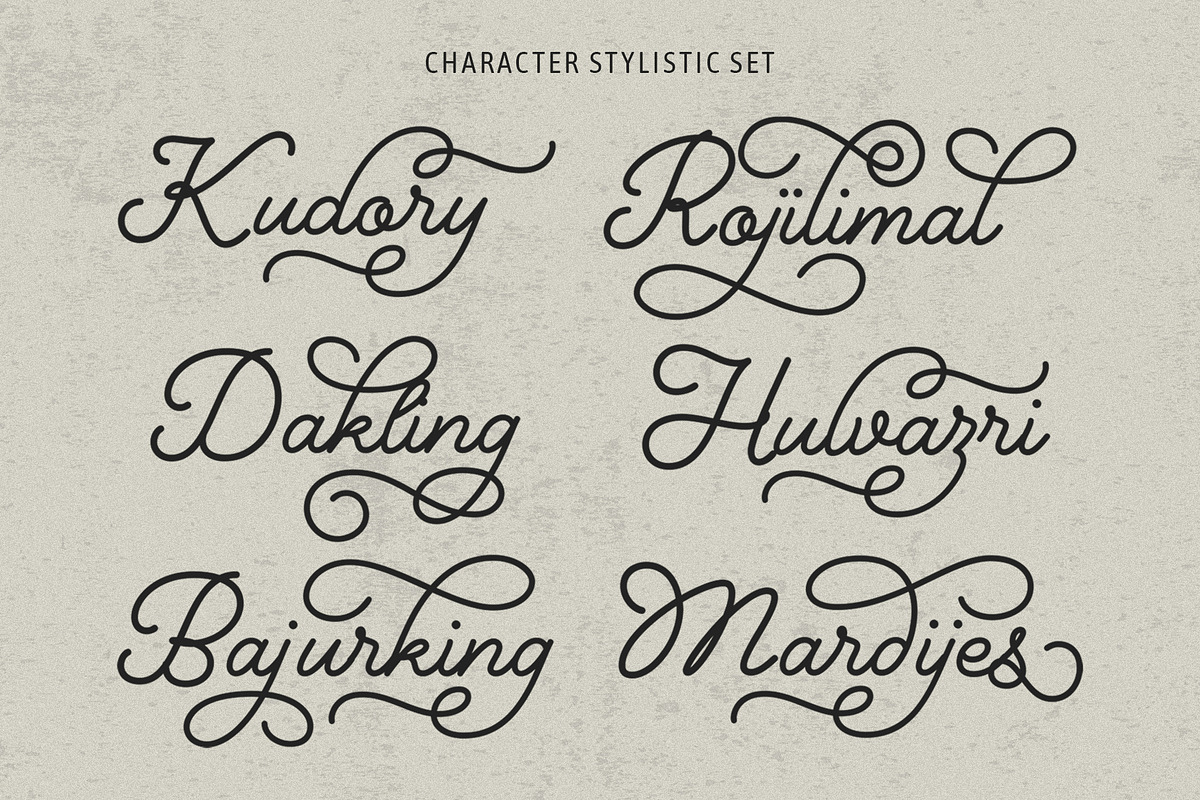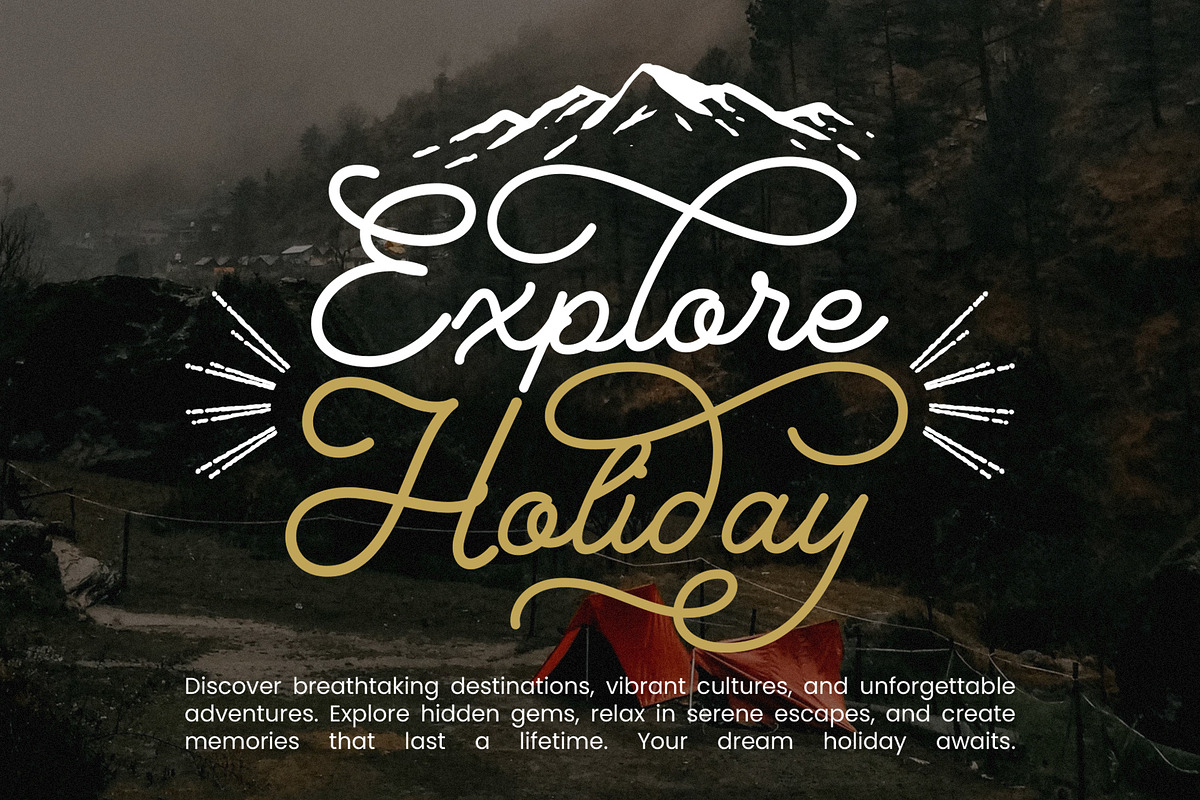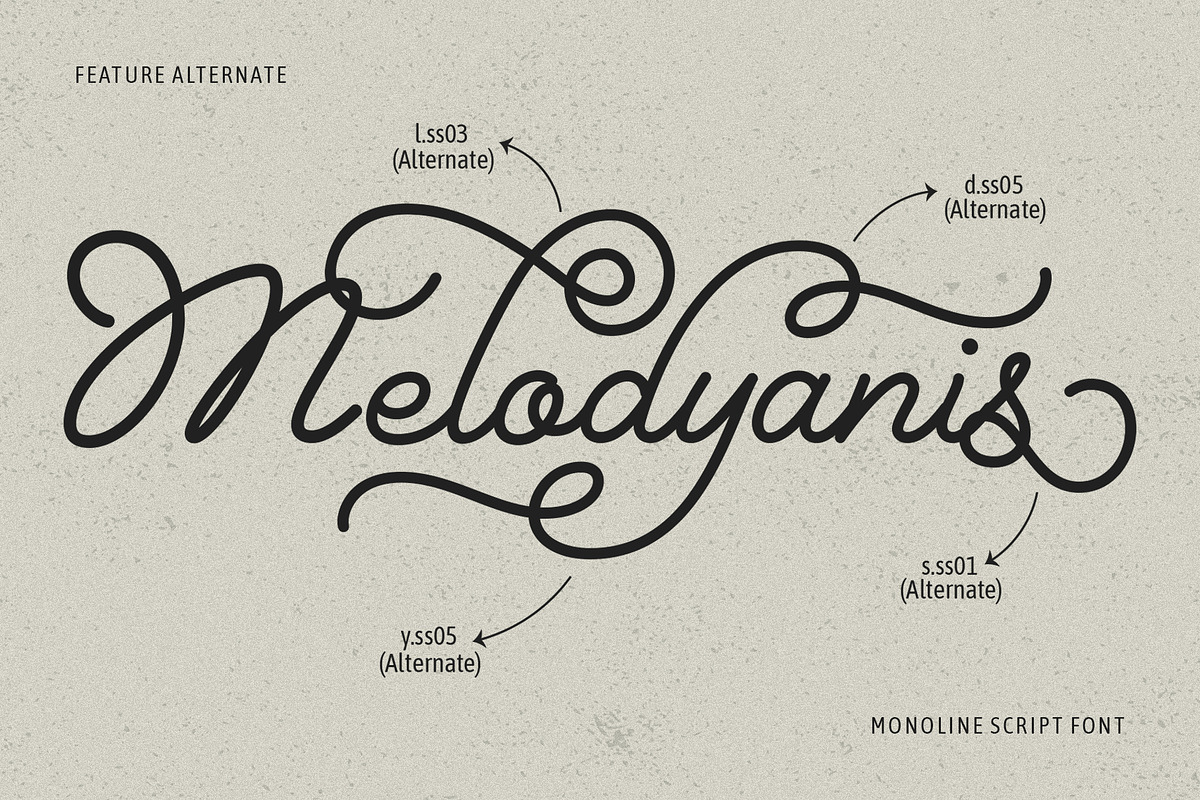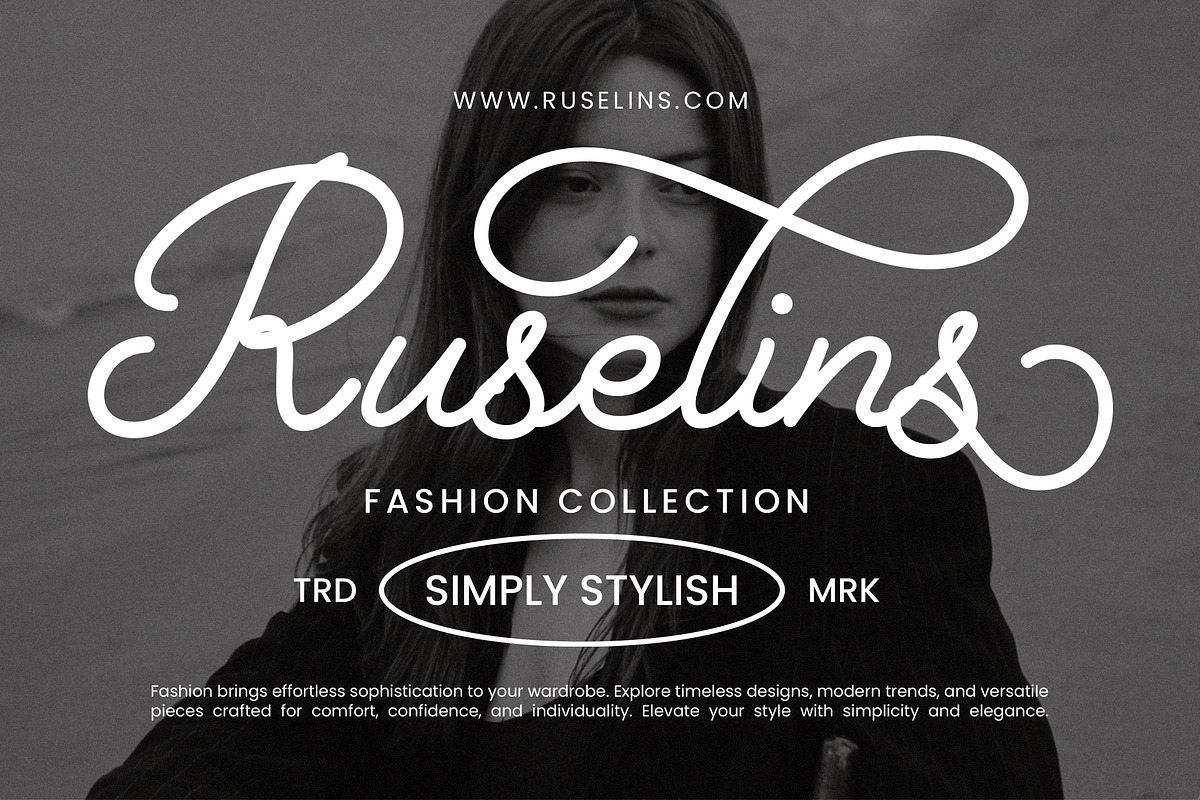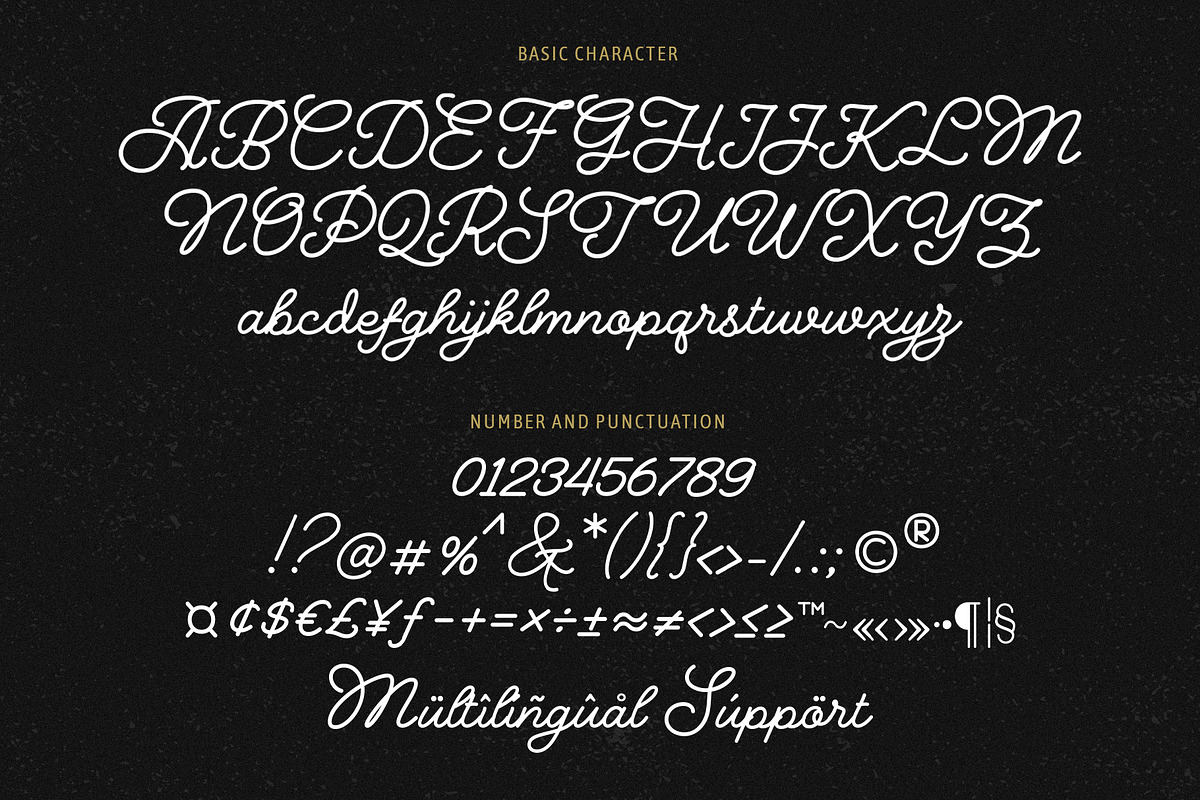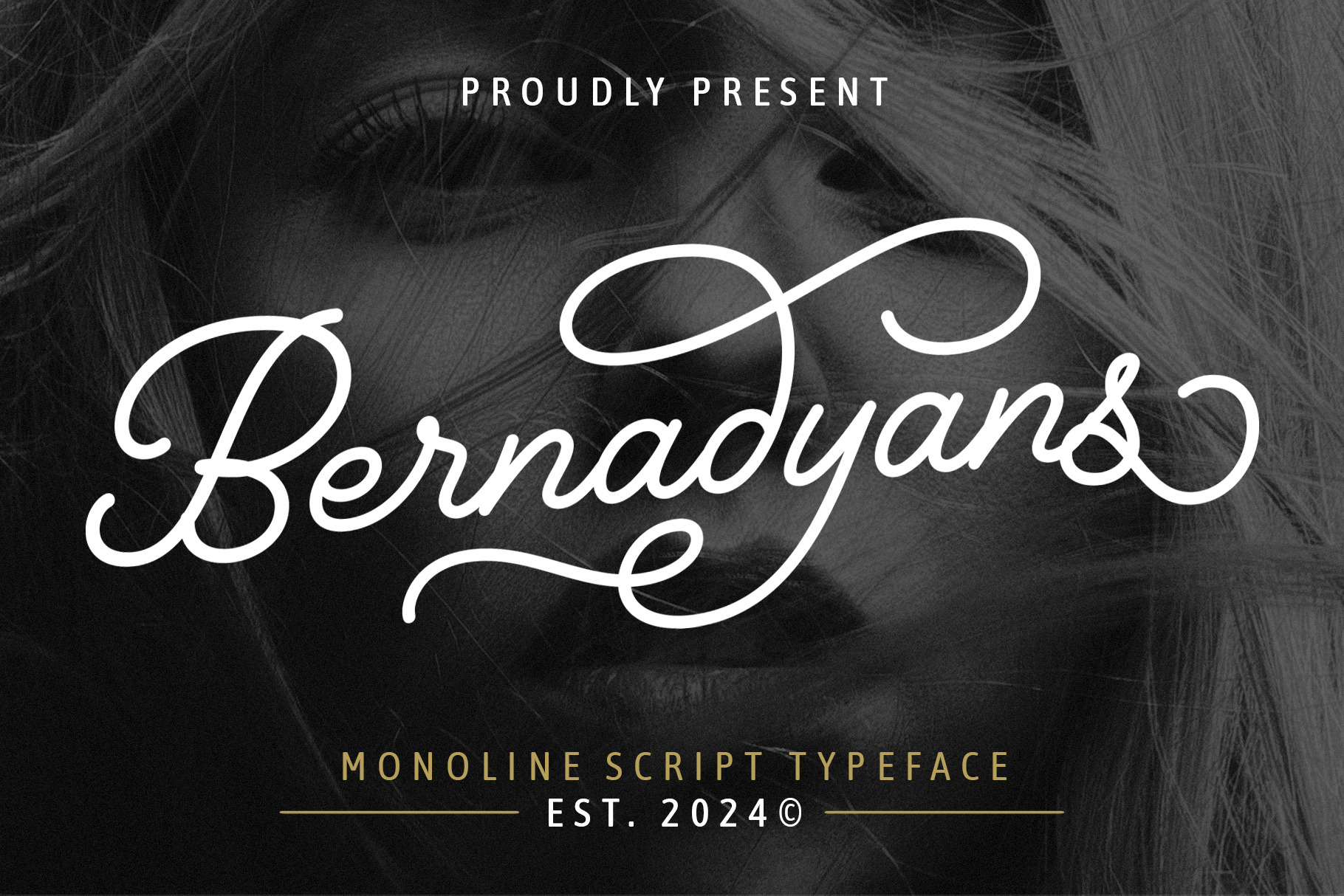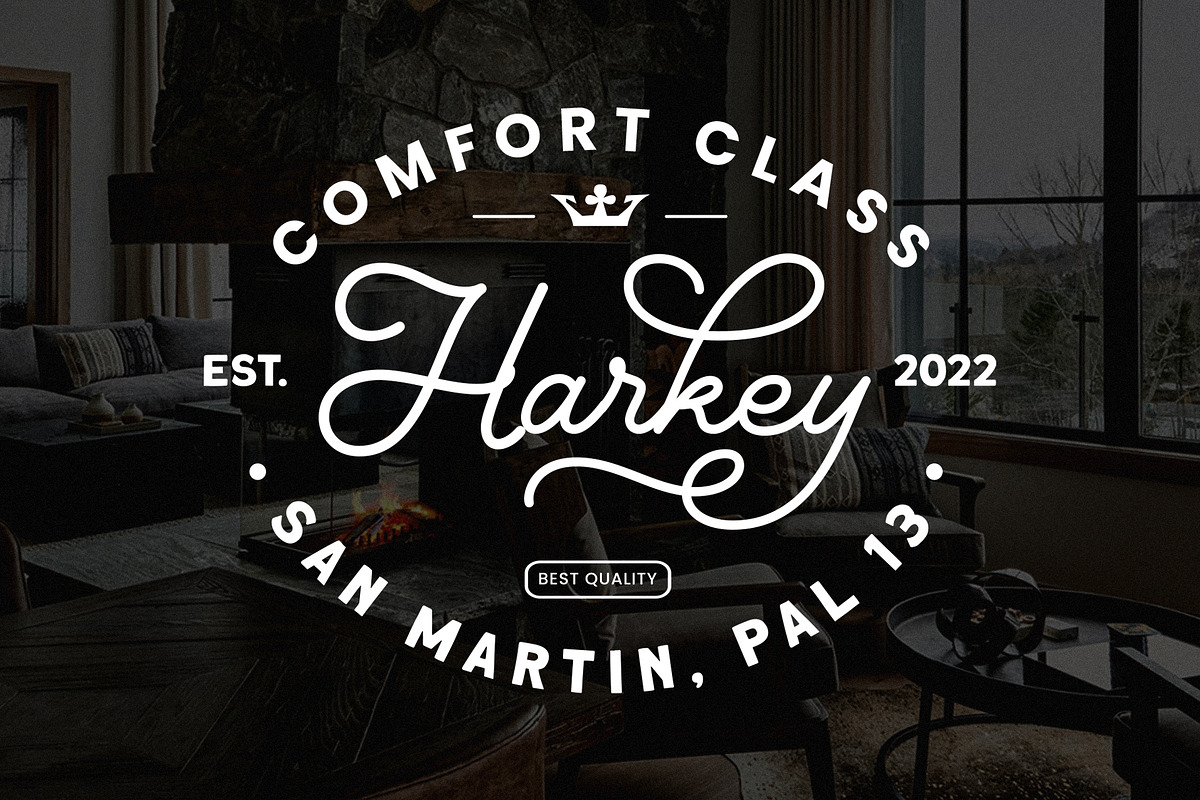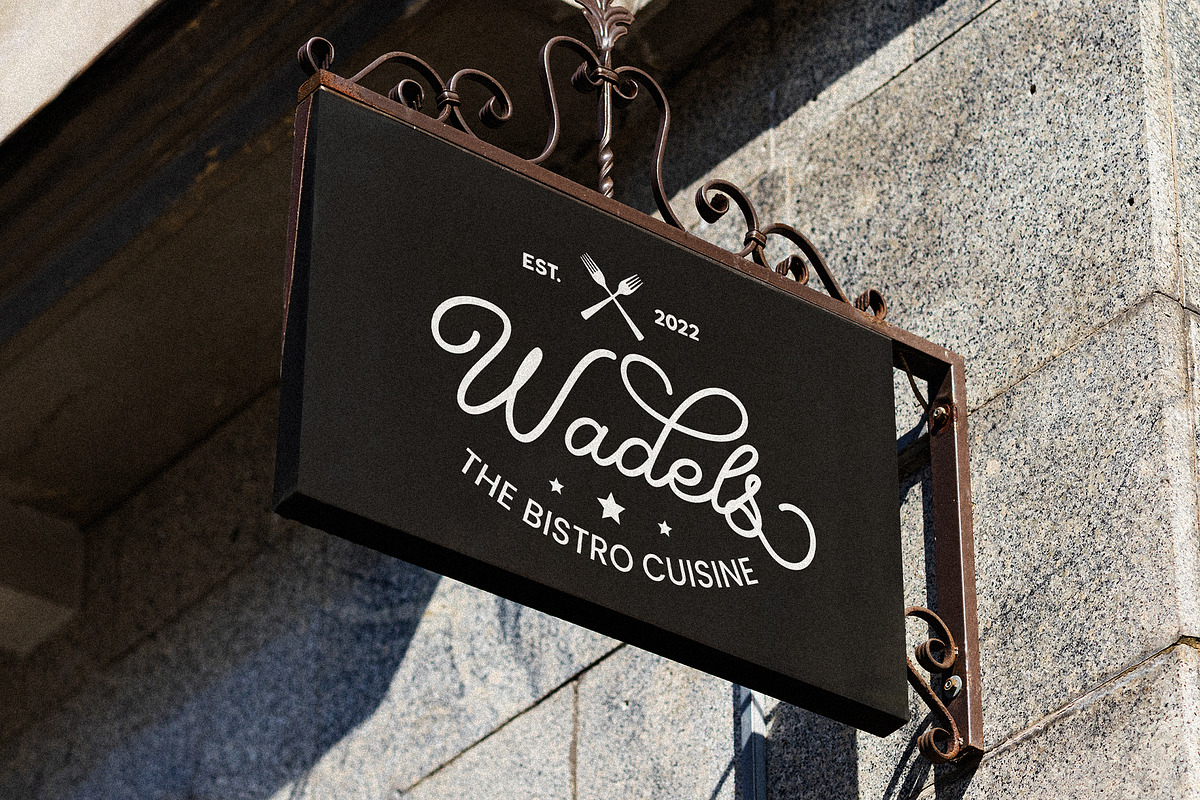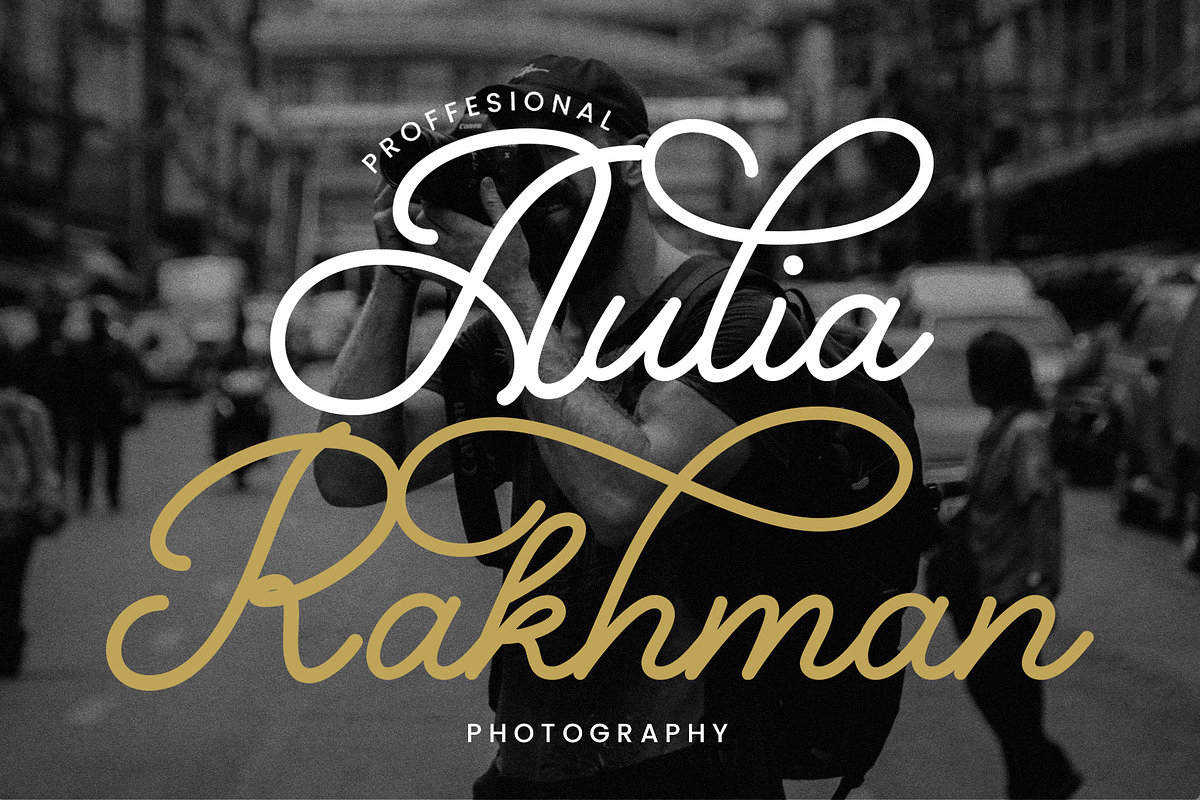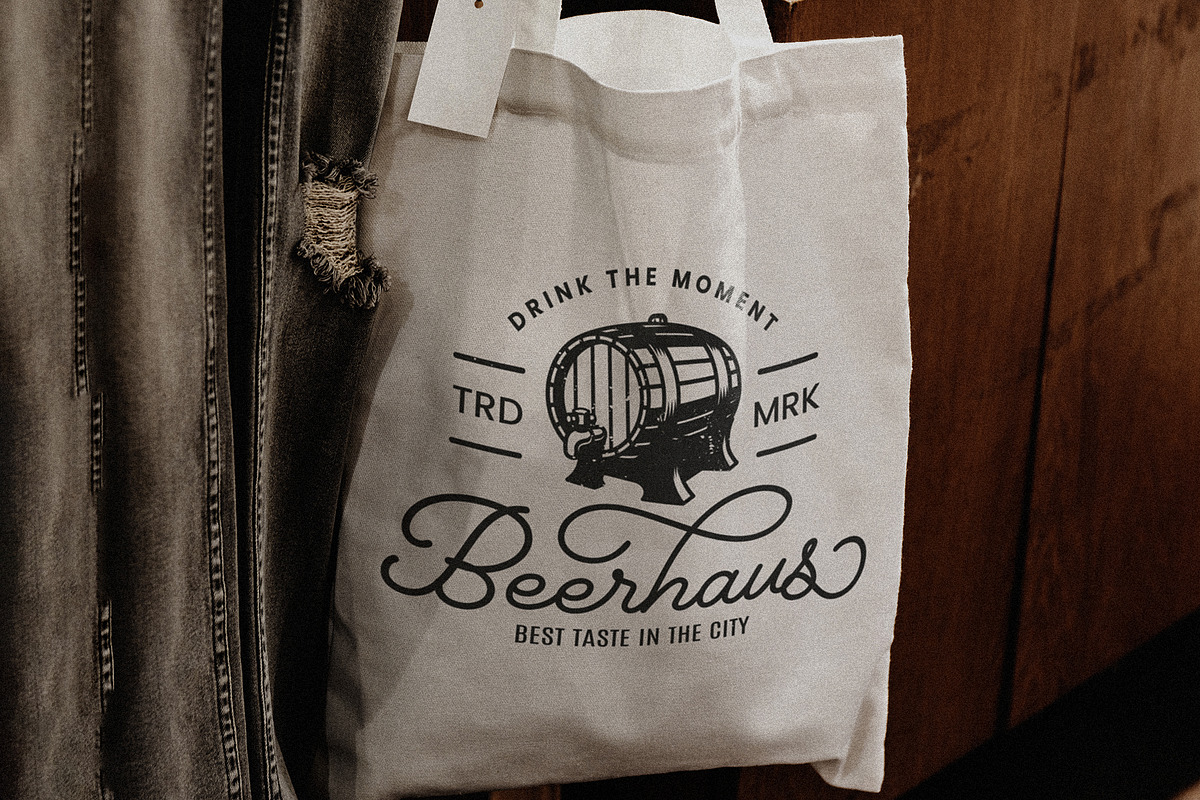
Bernadyans - Monoline Script Font
Bernadyans is an elegant monoline script typeface created with smooth handwritten connections, consistent strokes, and graceful decorative flourishes. Its refined signature style delivers a sophisticated balance between classic calligraphy and modern handwriting.
Designed for projects that require a personal, romantic, and premium character, Bernadyans works beautifully for luxury branding, wedding stationery, boutique identities, packaging, editorial layouts, and meaningful handwritten messages.
Bernadyans combines clean monoline construction with expressive uppercase characters and flowing lowercase connections. Its consistent stroke weight creates a polished and harmonious appearance, while the extended swashes add movement and personality to names, logos, and decorative headlines.
The typeface is especially effective for wordmarks, signatures, invitations, short quotes, and elegant product identities. Use the standard characters for a clean handwritten result or access the available alternate forms and ligatures to create more customized lettering compositions.
Bernadyans pairs naturally with refined serif fonts, minimalist sans serif typefaces, monochrome photography, soft neutral palettes, and premium editorial layouts.
Stylistic alternate characters
Decorative beginning and ending swashes
Ligature combinations
Western European accented characters
Elegant monoline script design
Smooth and consistent stroke weight
Graceful handwritten connections
Refined signature-style personality
Decorative uppercase flourishes
Beginning and ending swashes
OpenType alternate and ligature features
Strong readability at medium and large sizes
Suitable for print and digital applications
Ideal for logos, names, invitations, and short phrases
Easy to pair with elegant serif and minimalist sans serif fonts
Suitable for romantic, luxury, lifestyle, and editorial projects
Stylistic Alternates visible for select characters: B, y, s, and selected initial or terminal forms
18 Ligature Pairs: st, br, cr, ct, fr, ist, op, or, ox, th, Tr, tt, wn, ff, fi, fl, ffi, ft
Multilingual Support: Western European characters with diacritics, including À, Á, Â, Ç, É, Ñ, Ø, Ü, and more
Use Bernadyans at medium or large sizes to showcase its monoline details, flowing connections, and decorative swashes. It works best for logos, names, invitations, headlines, product titles, and short phrases rather than long paragraphs.
Pair Bernadyans with an elegant serif or clean sans serif font for dates, descriptions, captions, and supporting information. Leave sufficient space around extended flourishes to prevent overlapping.